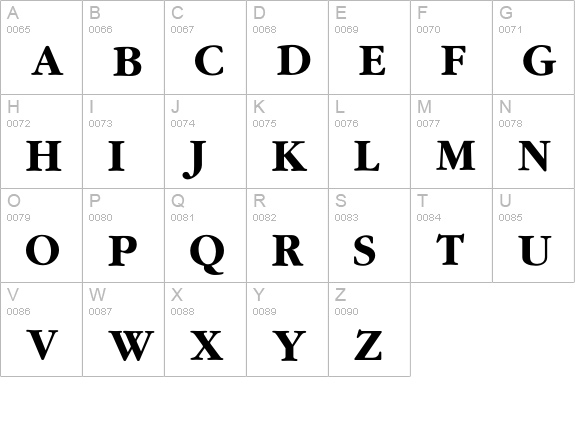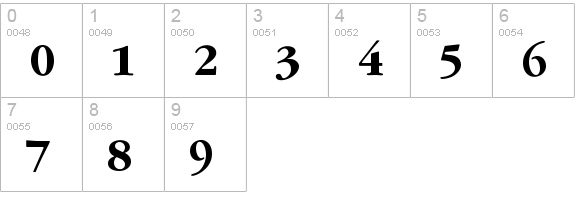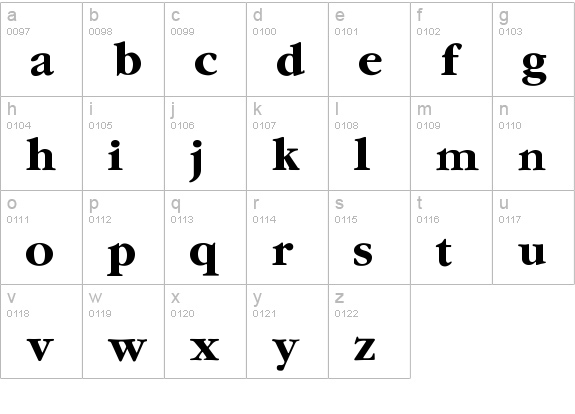
GaramondBold Font Details
GaramondBold font is a bold and striking typeface that exudes elegance and sophistication. Its clean lines and classic proportions make it suitable for a wide range of design projects, from branding and advertising to editorial layouts and signage. This font is renowned for its versatility and timeless appeal. The bold weight adds a sense of strength and authority to any text, making it perfect for headlines and titles that need to grab attention. The letters are meticulously crafted with sharp serifs and well-balanced curves, resulting in a harmonious and visually pleasing composition. One of the best things about GaramondBold font is that it is freely available to download at FontsMarket.com. This means that designers and creatives can easily access and utilize this powerful typeface without any cost or restrictions. Whether you are a professional designer or a novice enthusiast, having access to high-quality fonts like GaramondBold can greatly enhance your creative projects. With its timeless appeal and versatility, GaramondBold font is sure to become a go-to choice for designers looking to make a bold statement. Its distinctive characteristics and striking presence will instantly elevate any design, giving it a professional and polished look. So don't miss out on this amazing opportunity to download GaramondBold font for free at FontsMarket.com and take your designs to the next level.